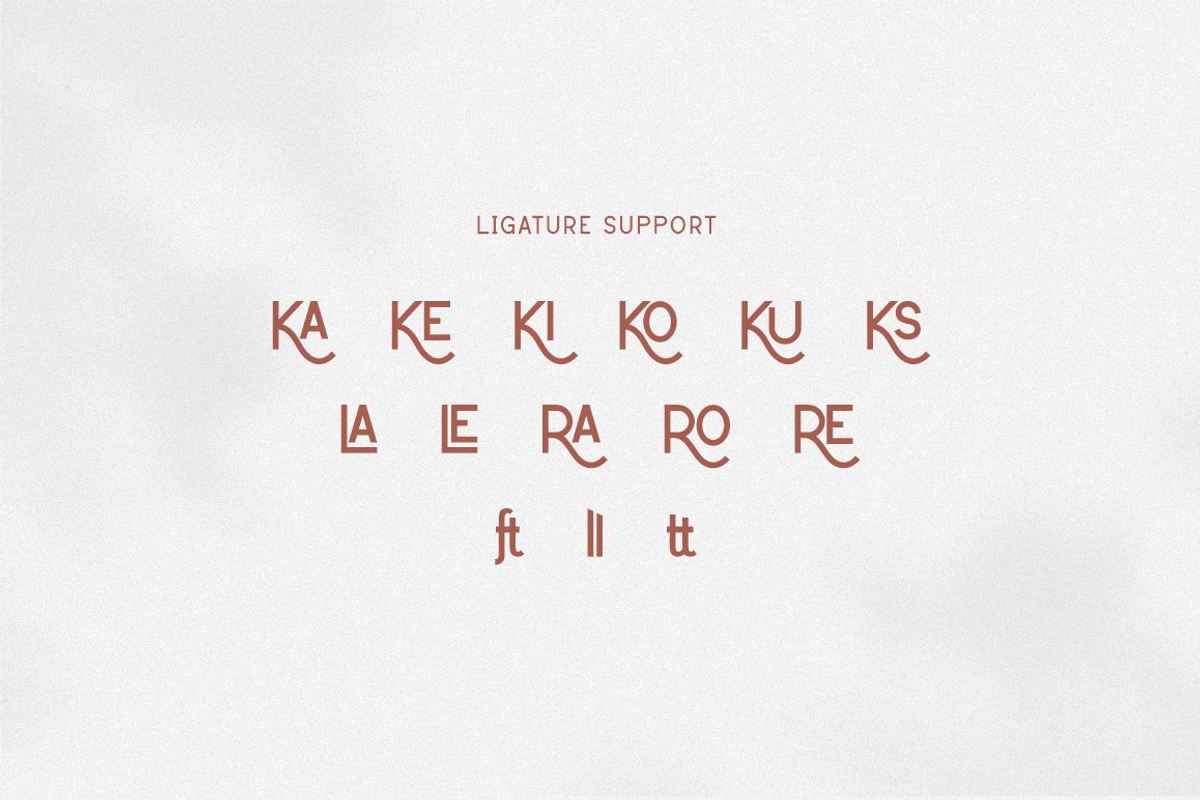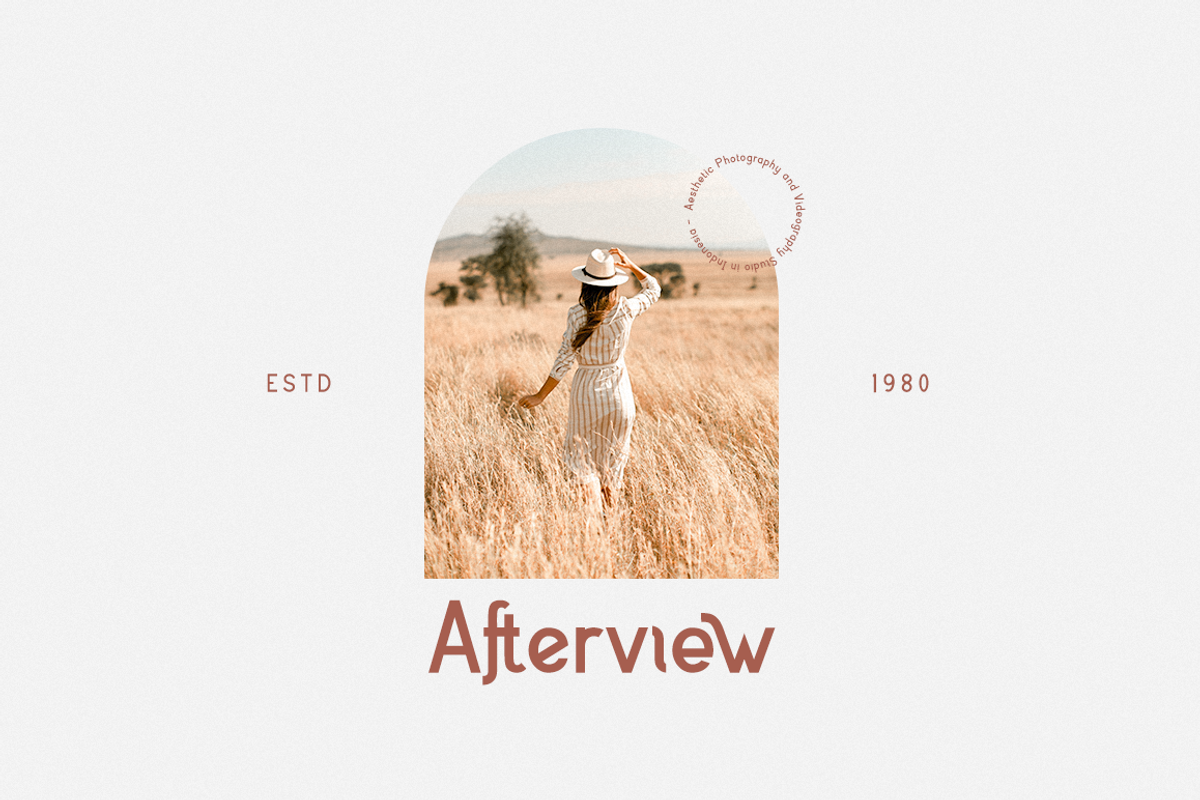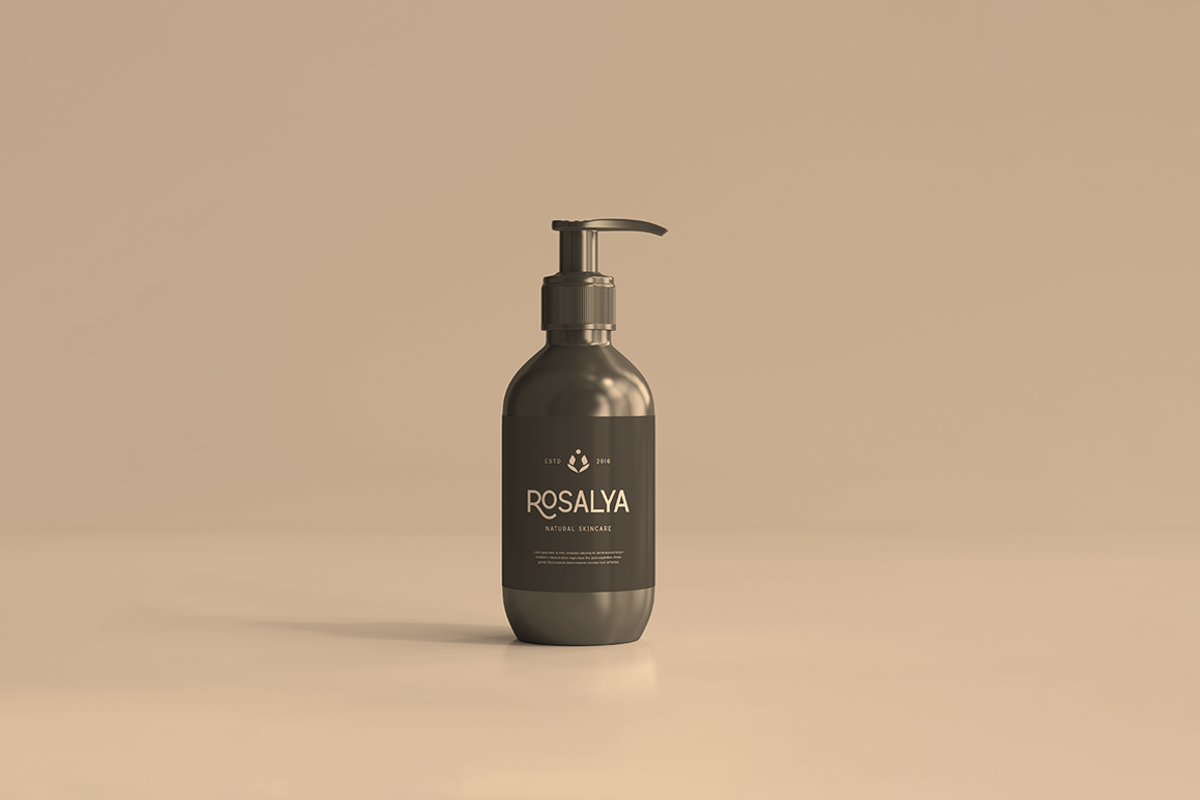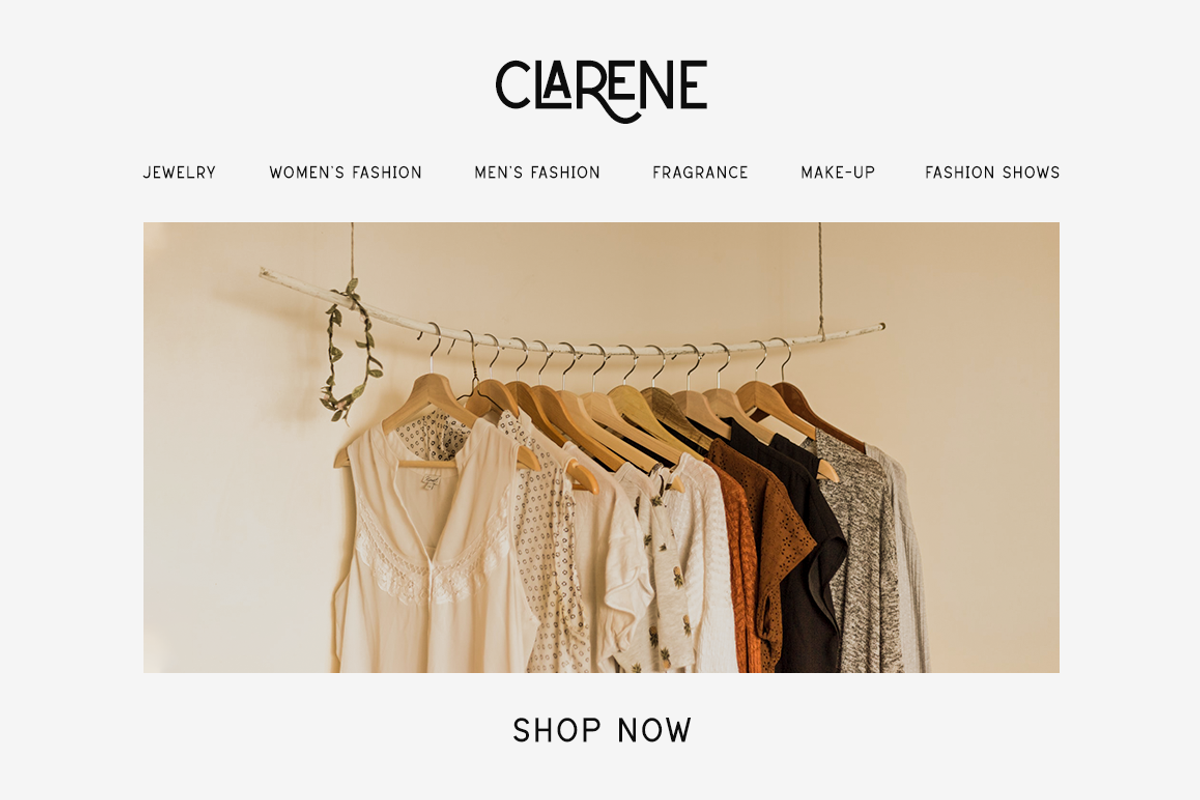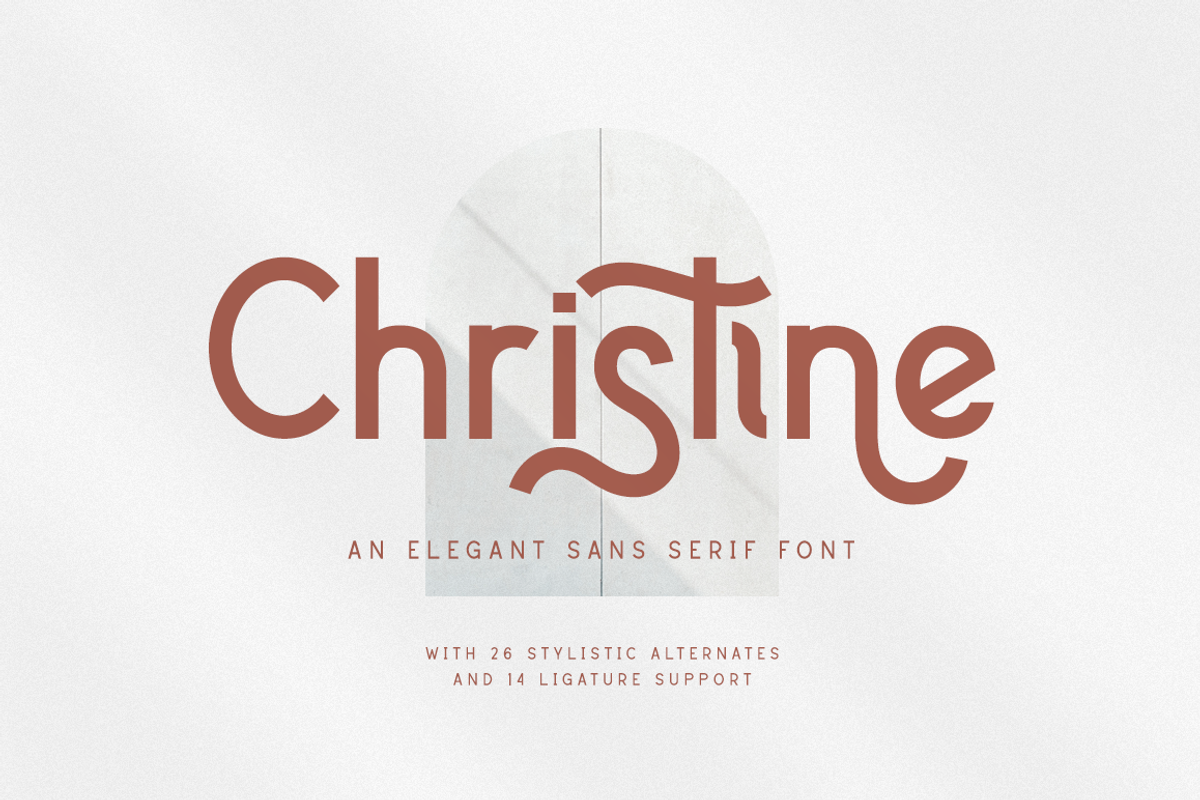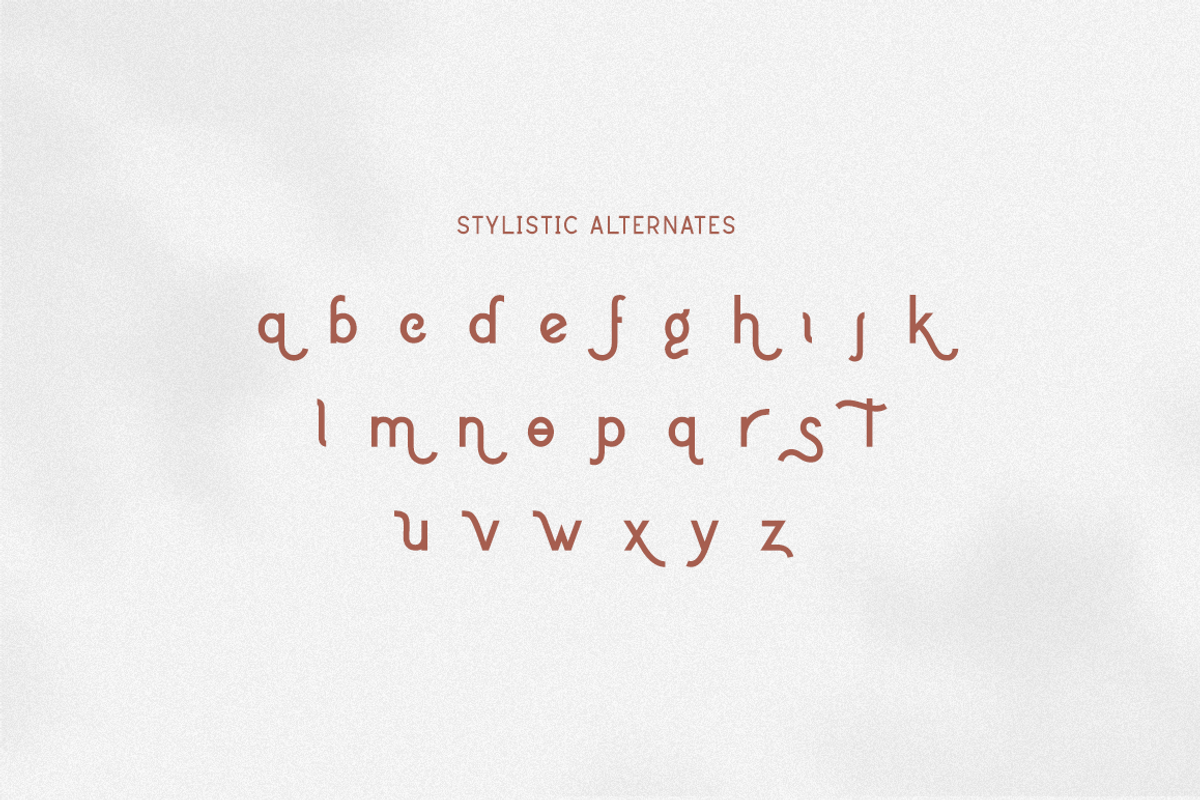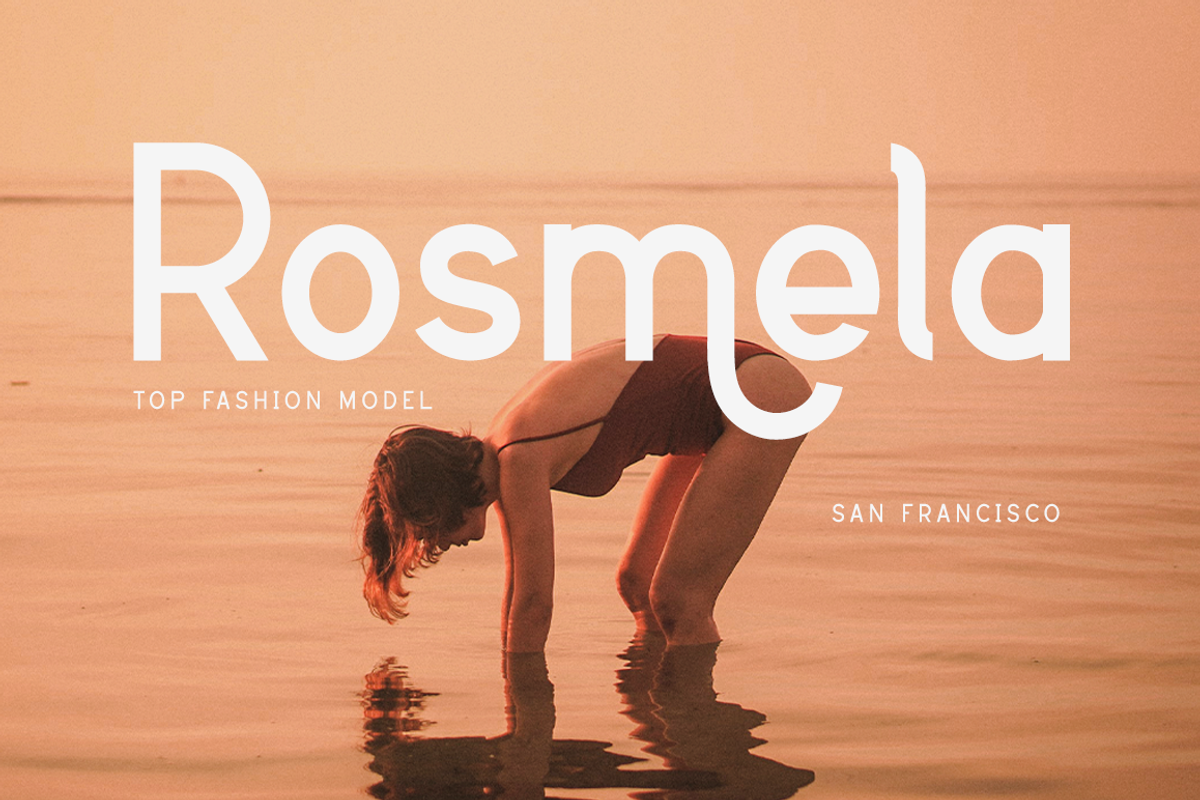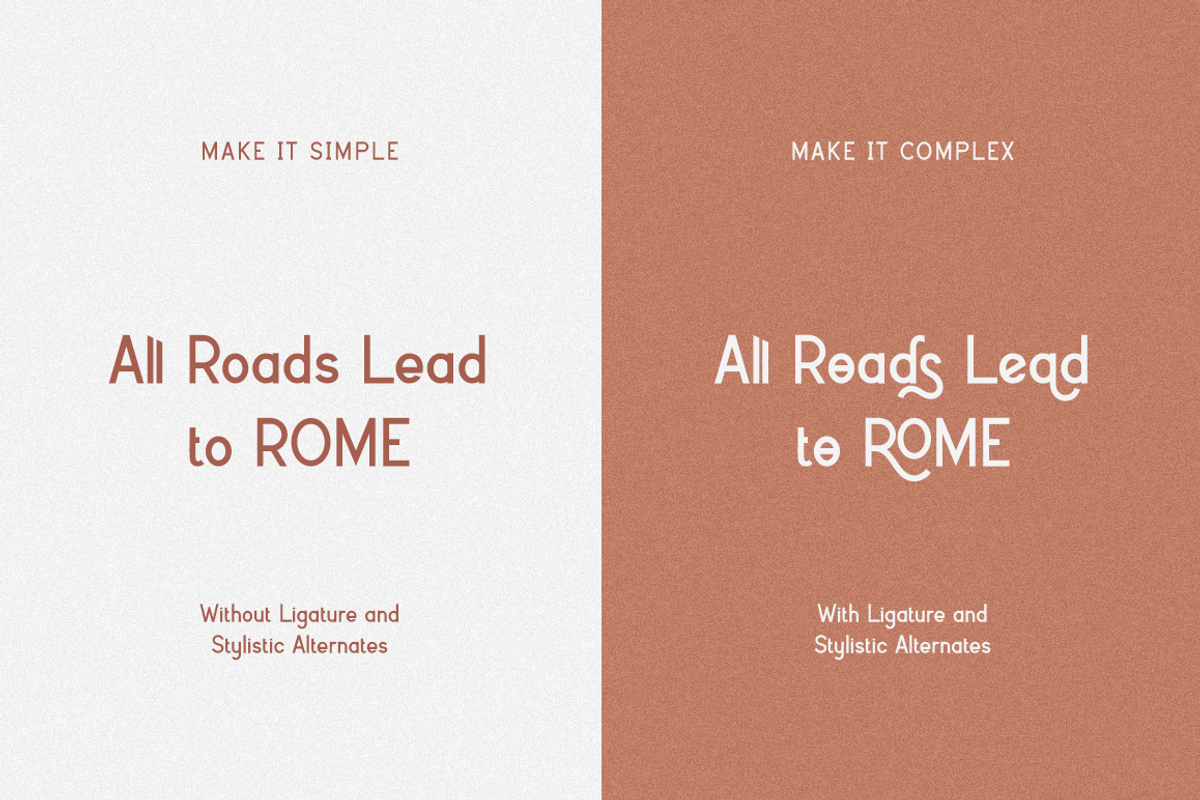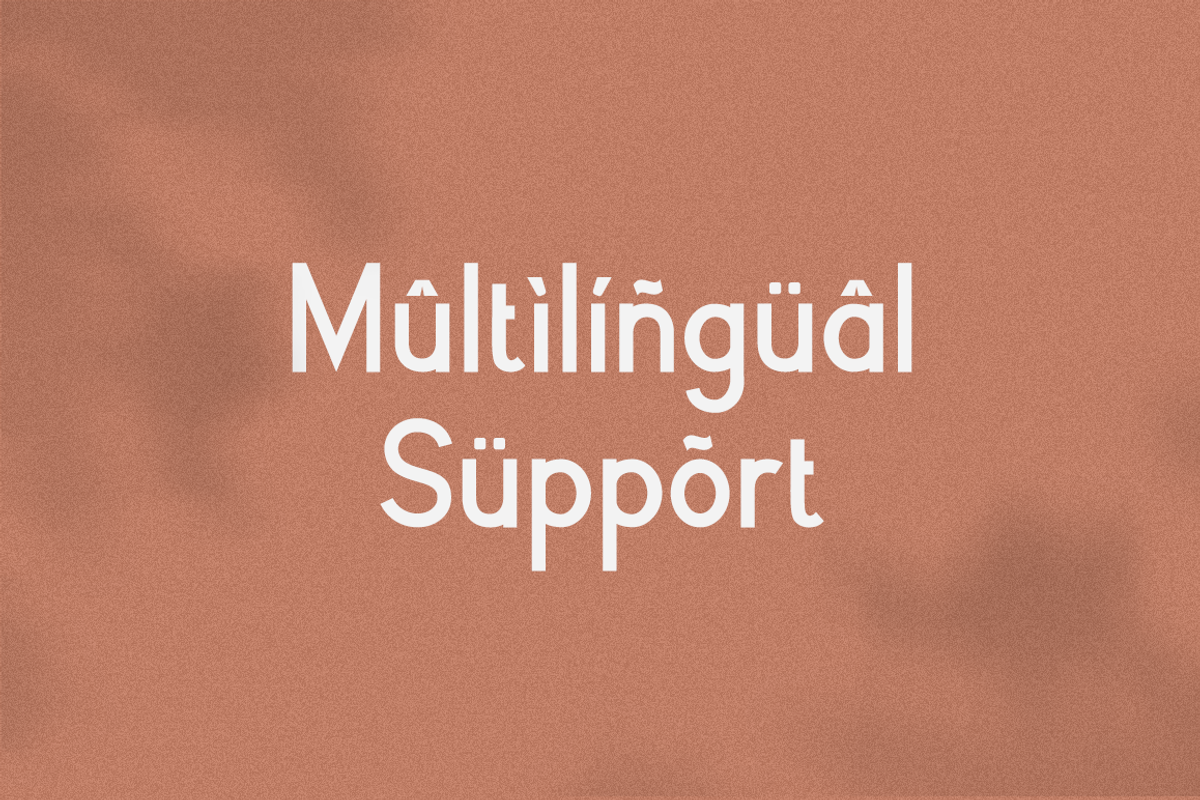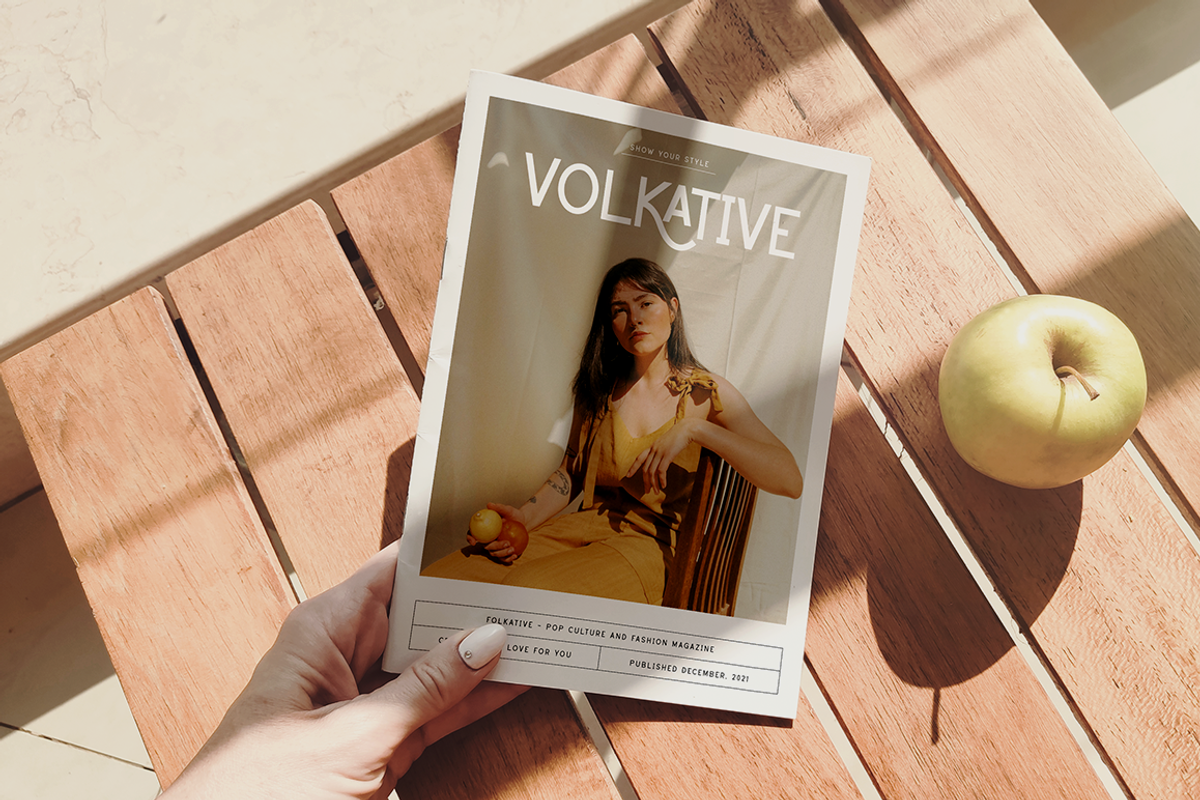
Christine - Advertisement Font
Christine is a minimal and neat sans serif font. It can easily be matched to an incredibly large set of projects, so add it to your creative ideas and notice how it makes them stand out!